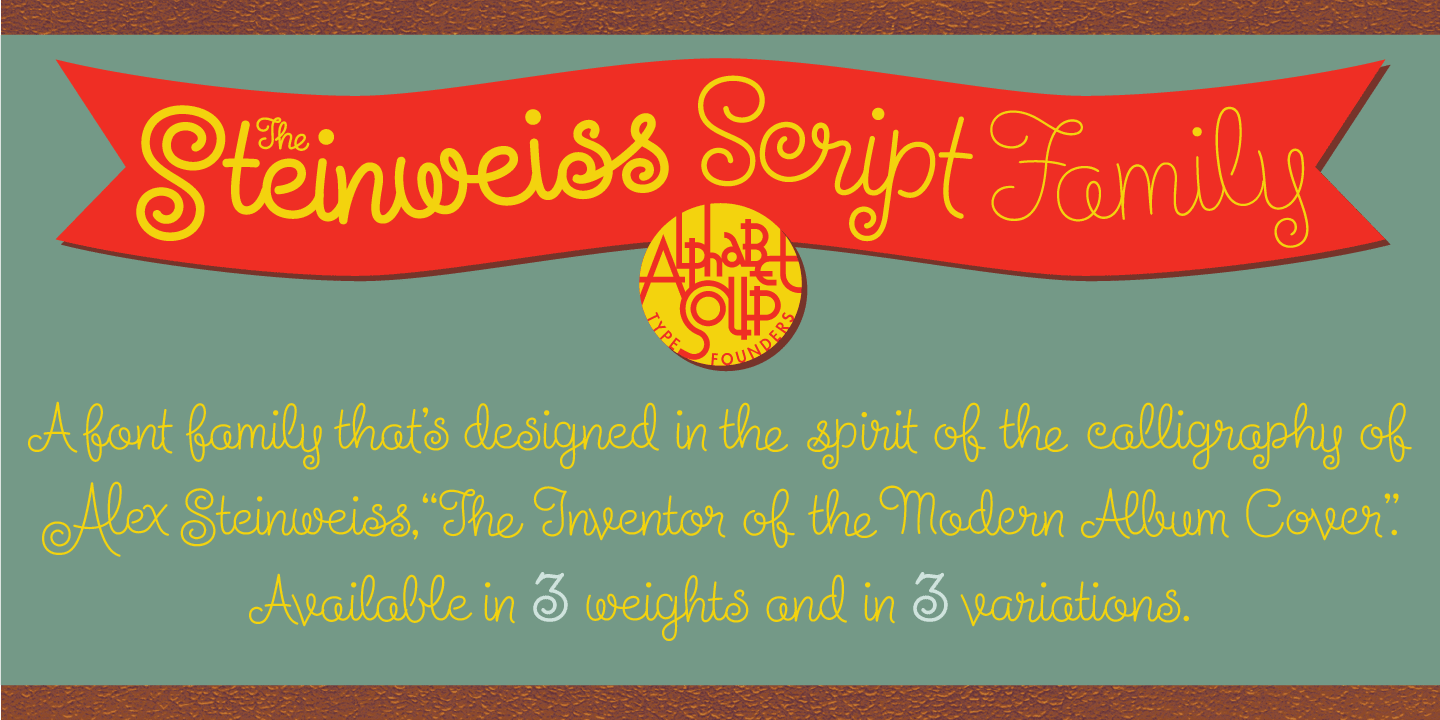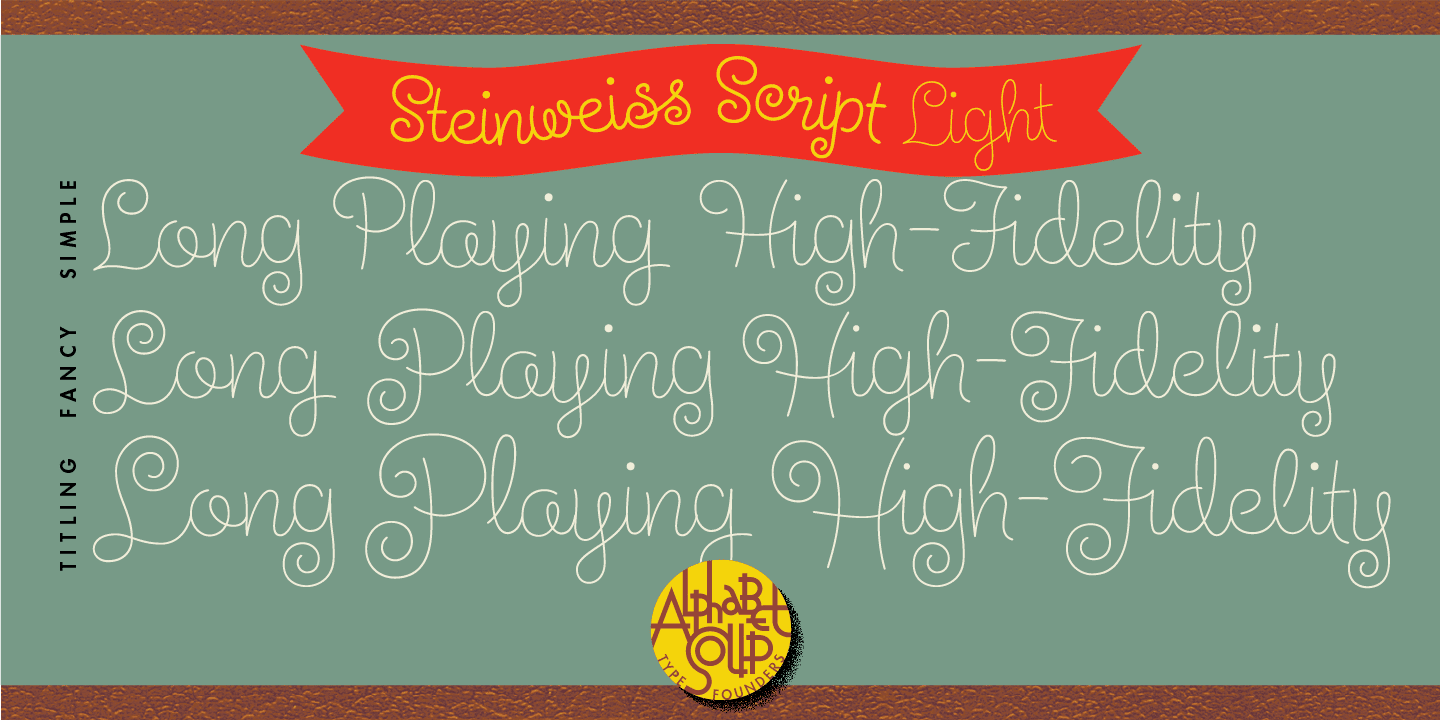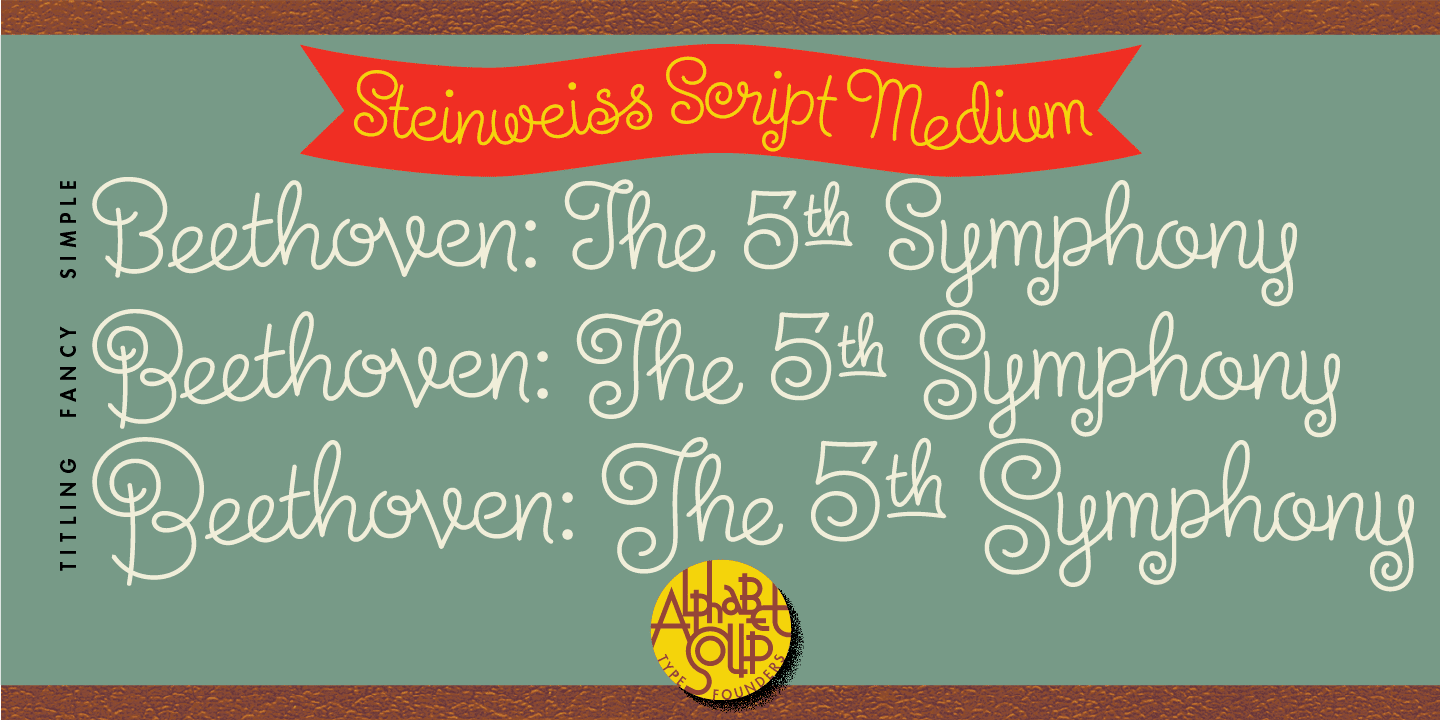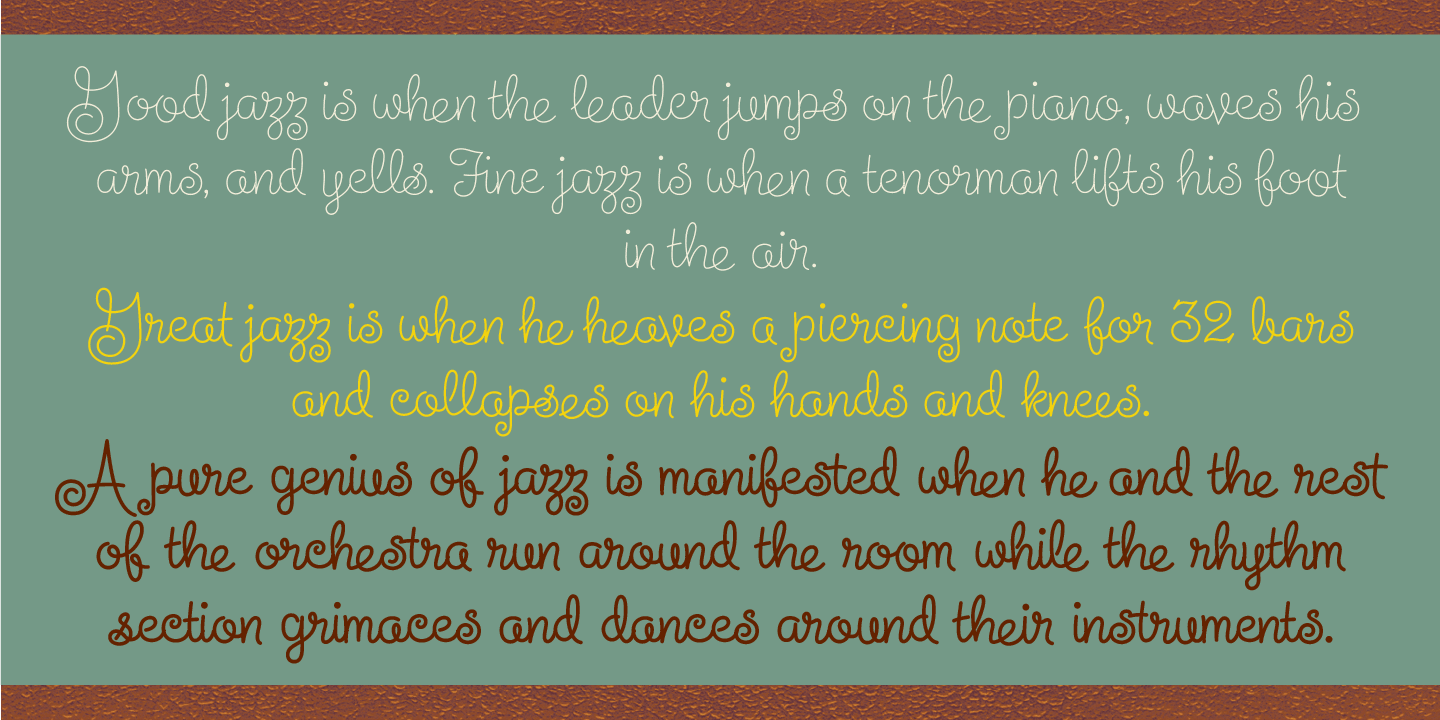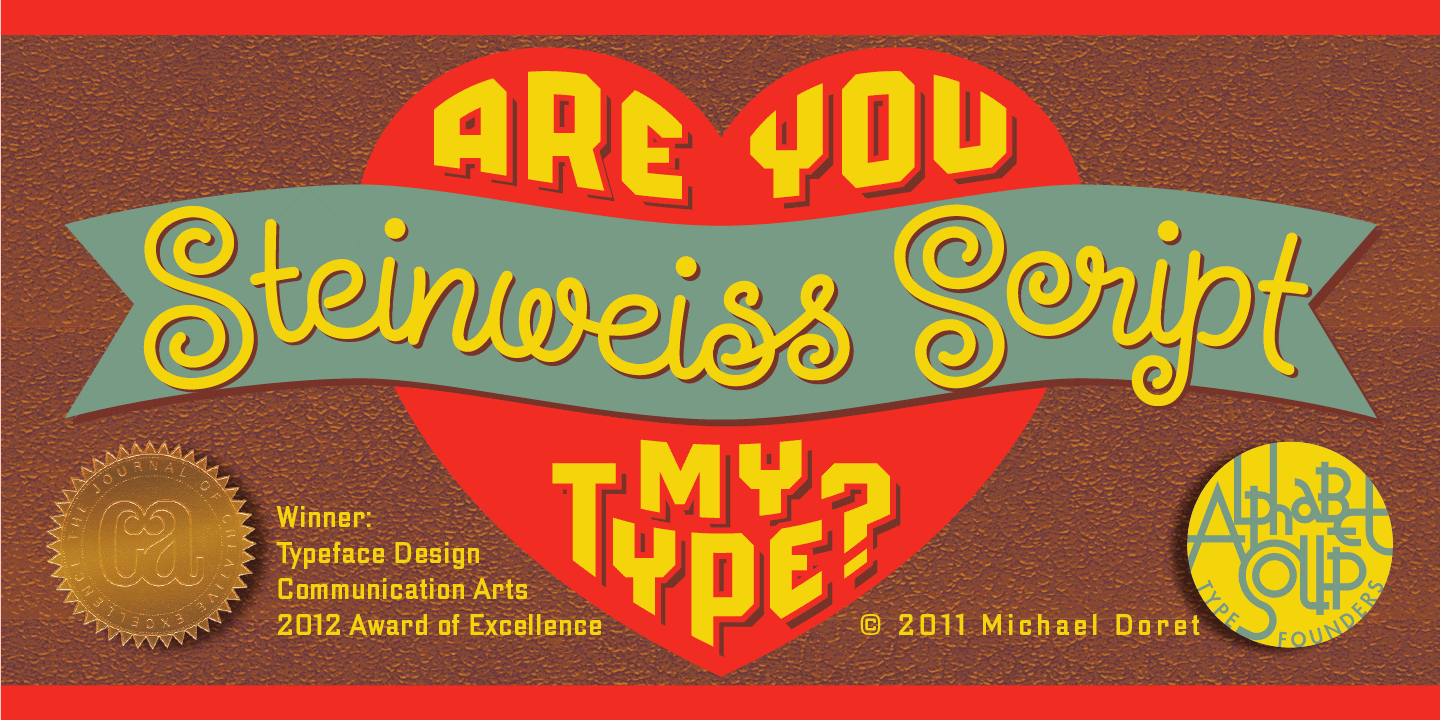
Steinweiss Script
About Steinweiss Script
Steinweiss Script is a family of fonts in three weights: Light, Medium, and Bold. Additionally, within each weight there are three variations: Simple, Fancy, and Titling. These variations relate to the size/ratio of the caps to the lowercase, the complexity…